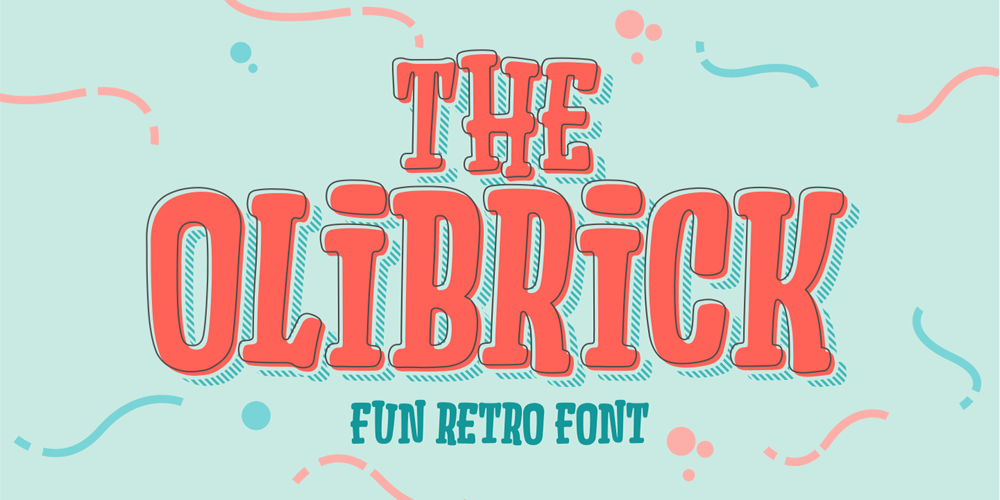
The Olibrick Font Family was designed by Hanief Farandi and published by Hanzel Space. The Olibrick contains 1 styles and family package options. The Olibrick – Fun Retro FontIntroducing The Olibrick Font, I deliberately made this font with a fun and slightly flexible character, because from the shape of the character this font is very suitable for product branding. It has a font shape that has its own uniqueness, which can be applied to branding or packaging projectsFeatures: Multilanguage Punctuation